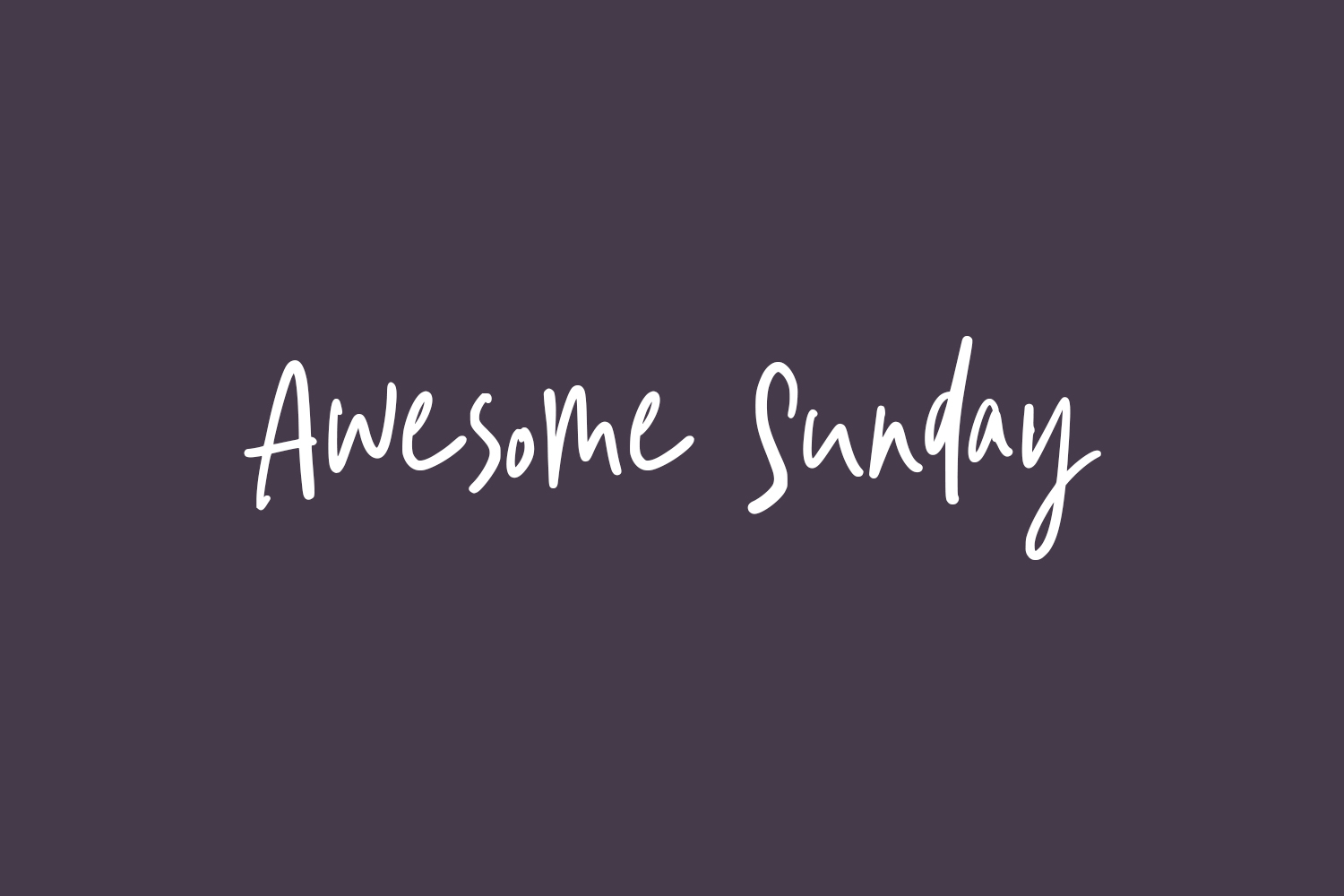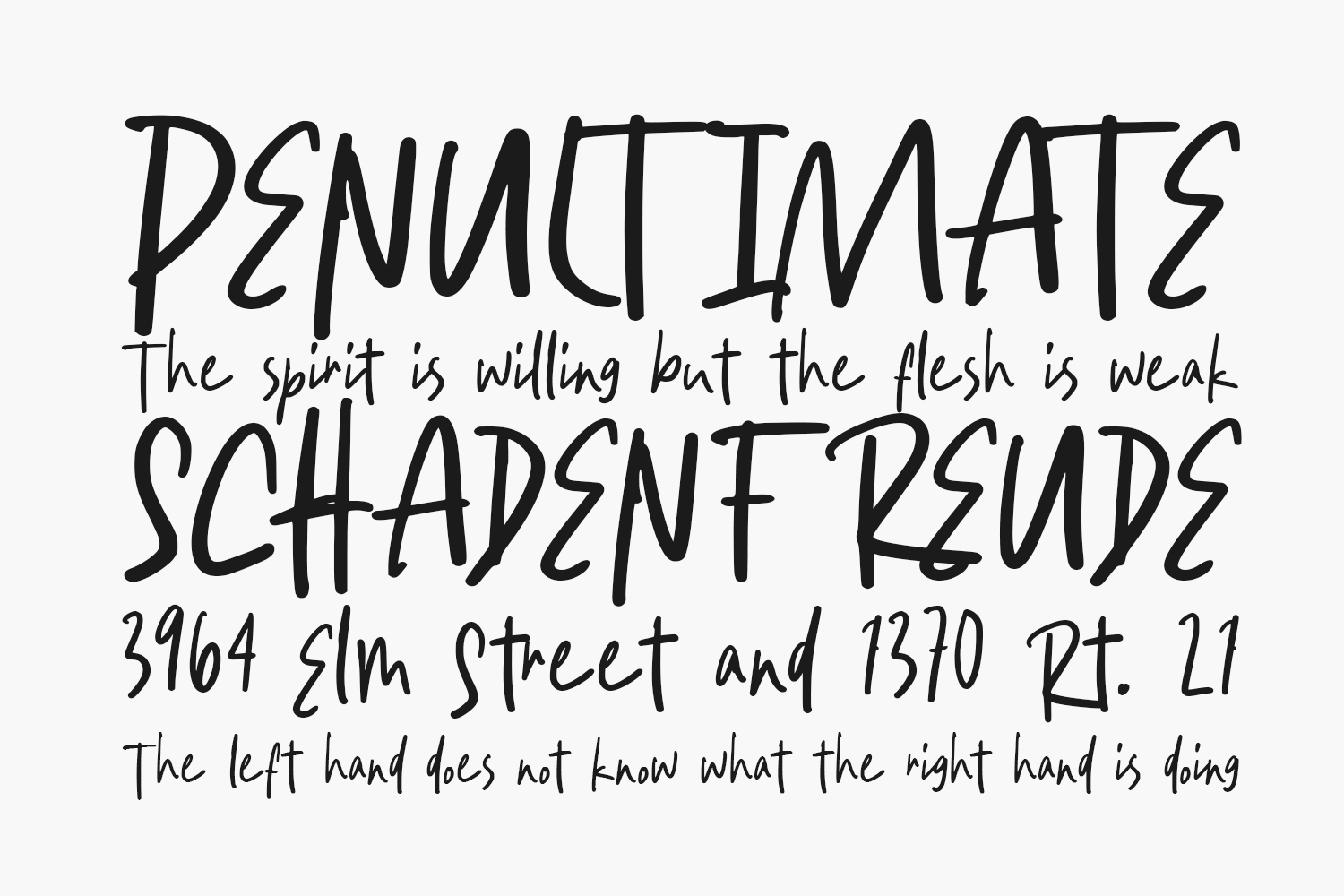
Experience the charm of Awesome Sunday Free Font, a delightful and elegant script font that radiates adorability. Designed with utmost care, this font is tailor-made for individuals seeking to infuse their designs with a captivating and invigorating allure. Awesome Sunday Free Font is free for personal use only. Please purchase the full version for commercial use.
Designed by Kotak Kuning Studio